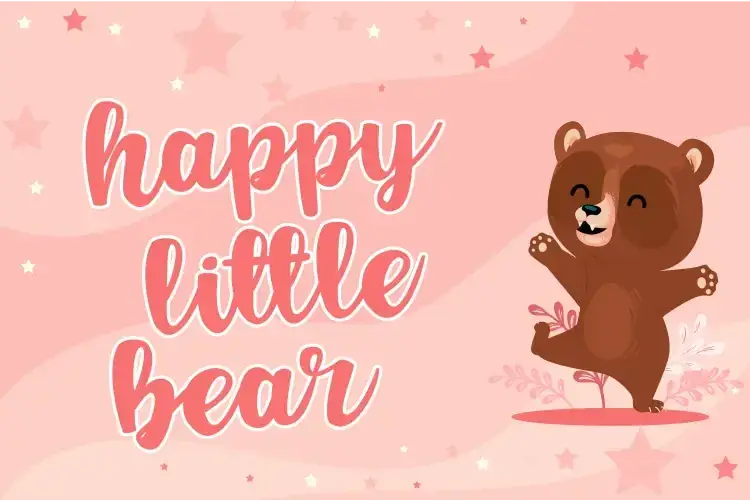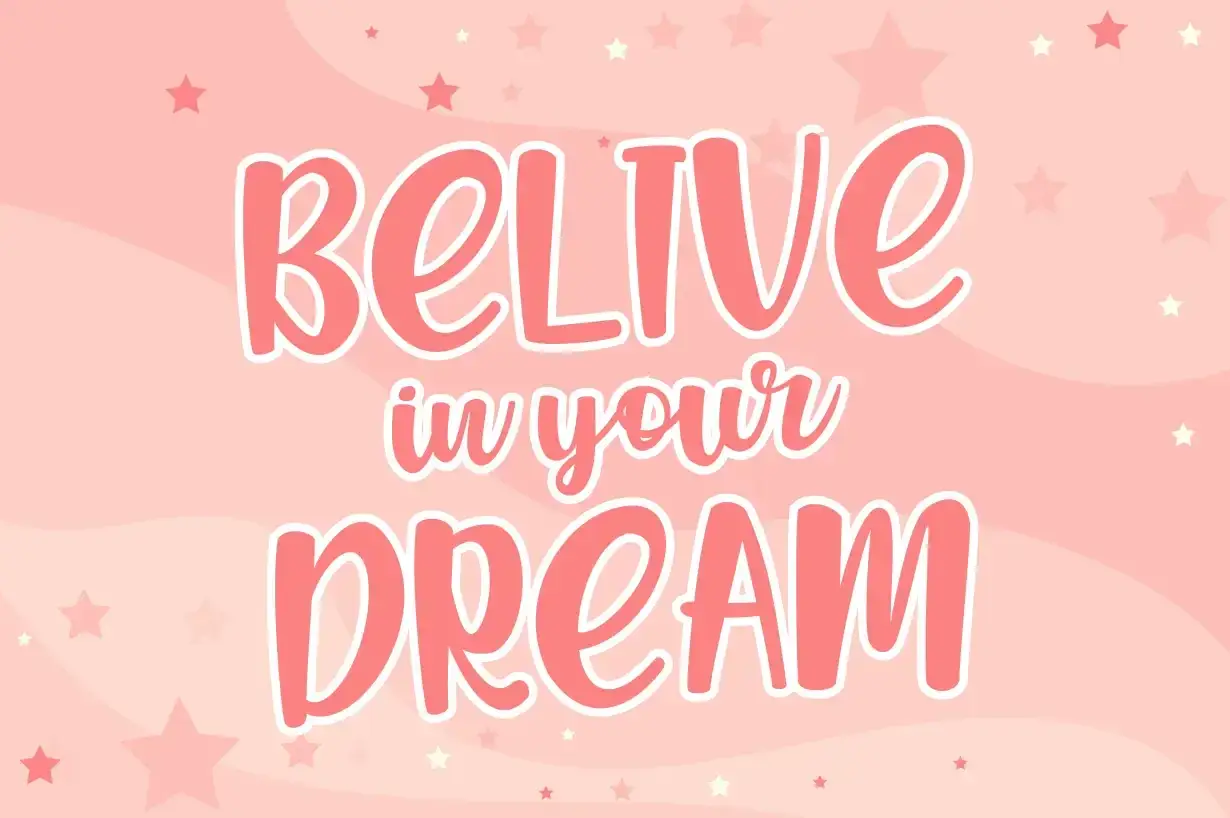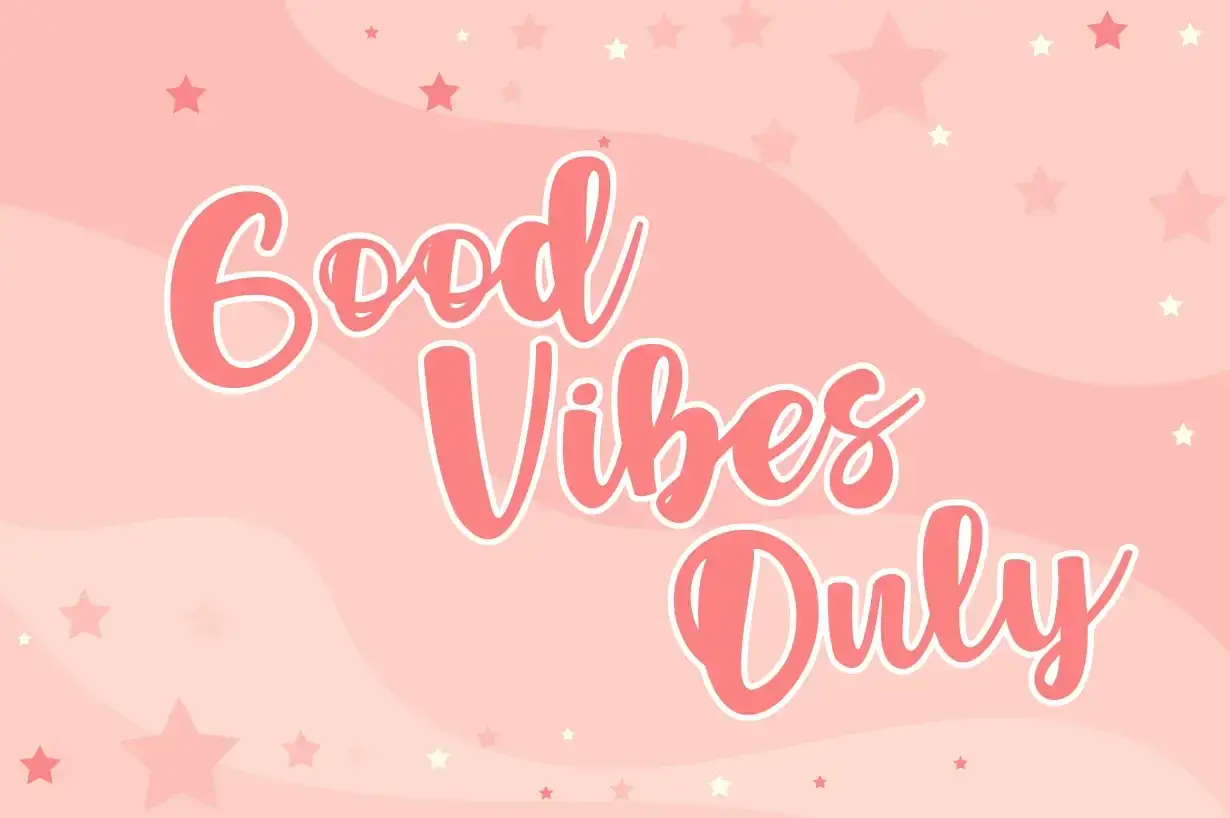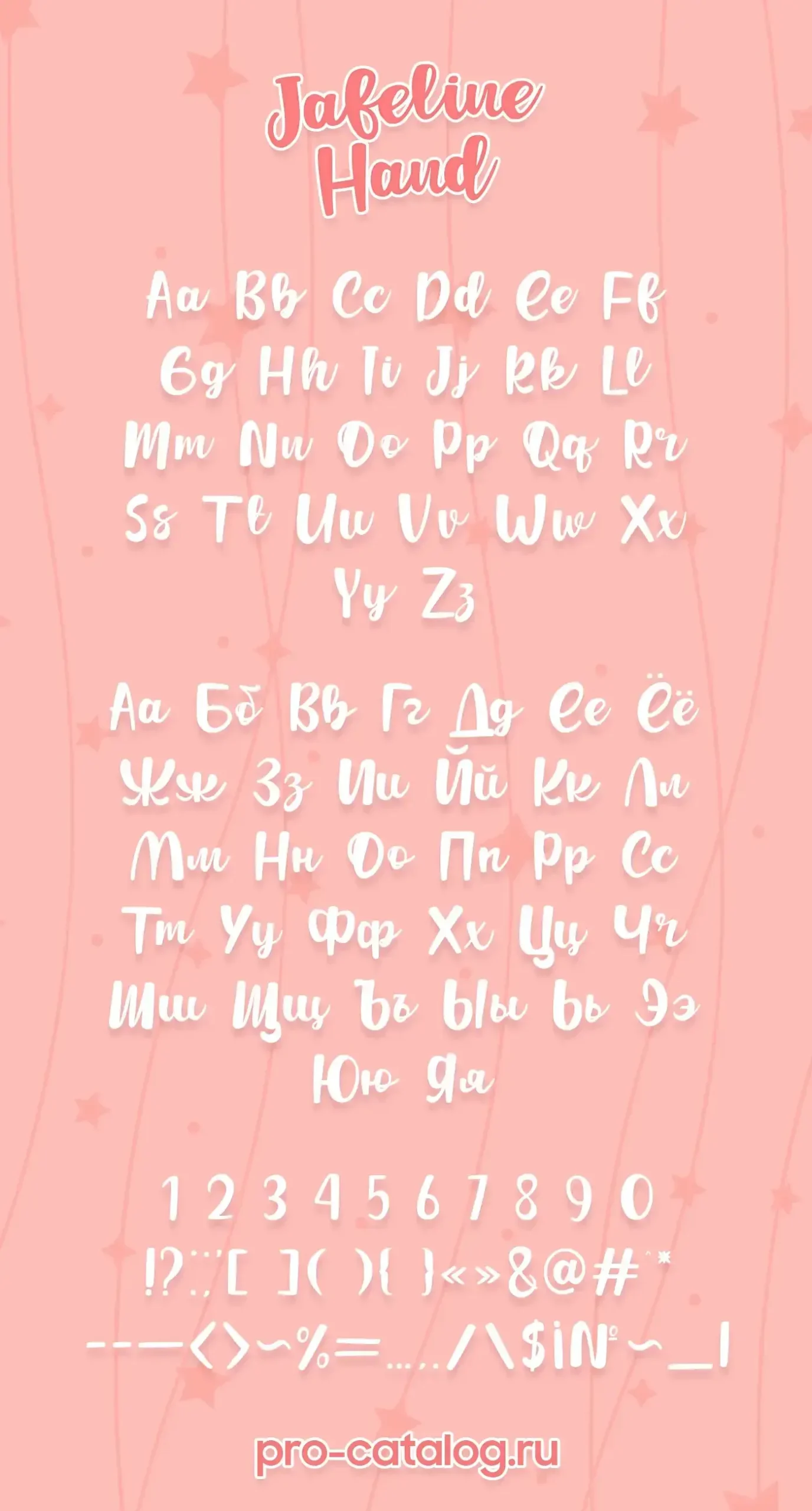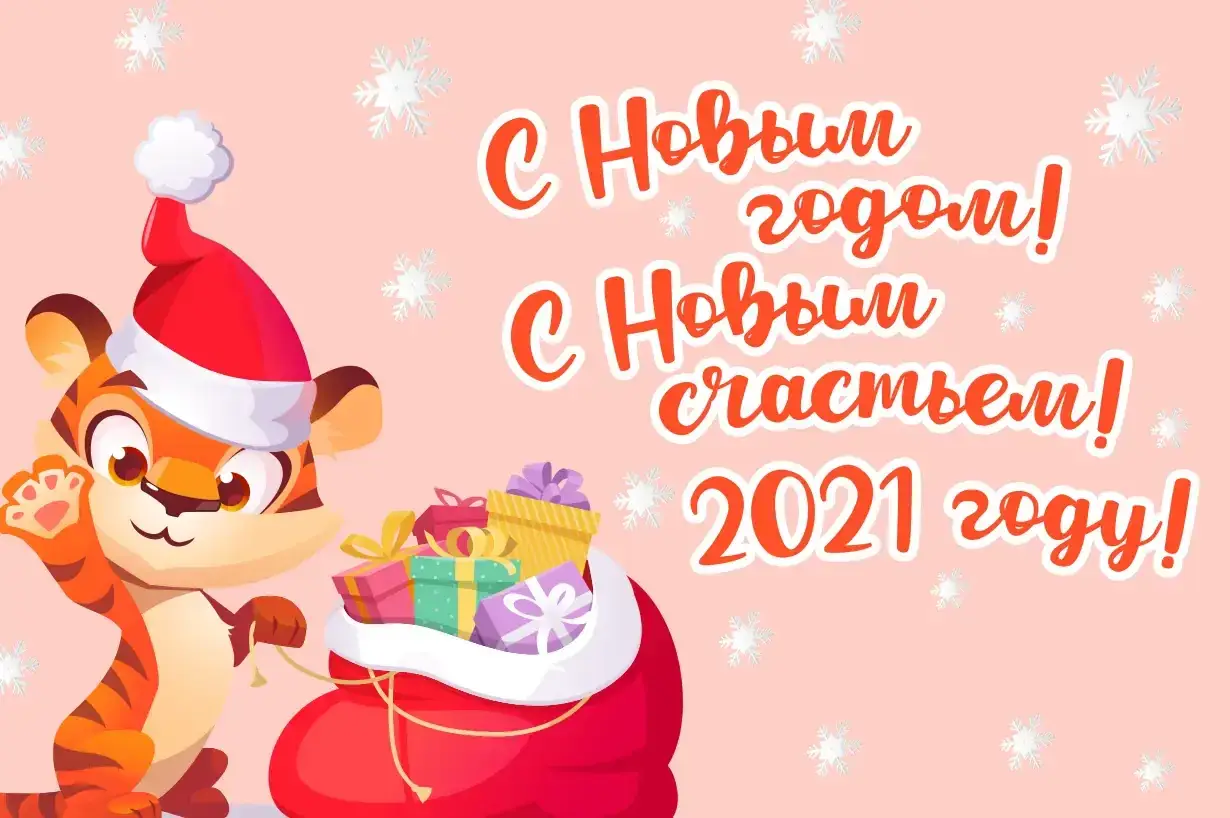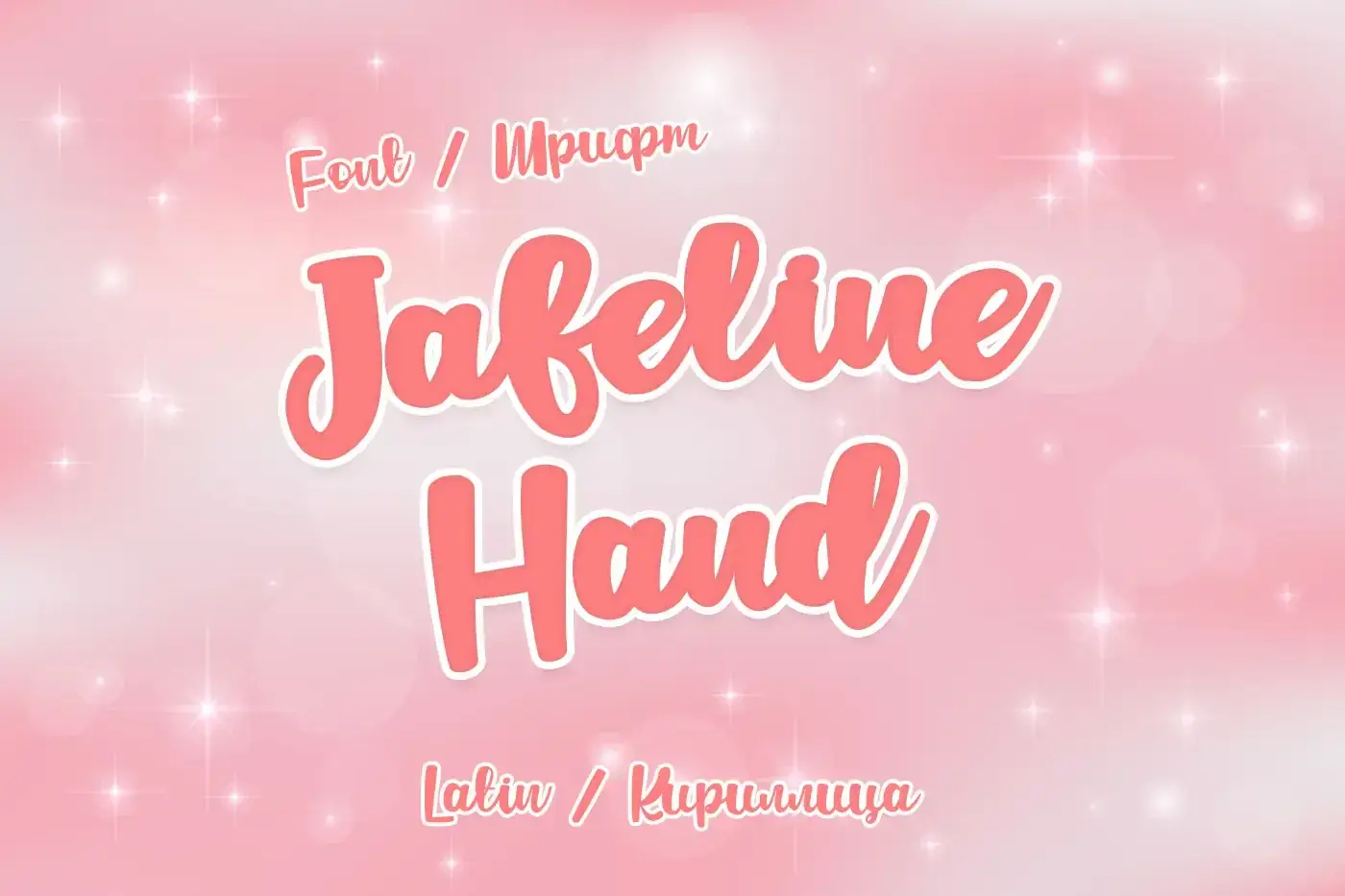
Jafeline Hand Font: A Perfect Blend of Charm and Modernity
Introducing Jafeline Hand Font, a delightful handwritten typeface that combines the elegance of classic calligraphy with a contemporary twist. This font is perfect for those looking to create unique and eye-catching designs that stand out.
Jafeline Hand Font is designed for creatives who appreciate the beauty of handwritten typography. Whether you’re working on invitations, branding, or digital projects, this font adds a personal touch that captures attention and evokes emotion.
- ✅ Stylish Design → Perfect for modern and vintage aesthetics alike.
- ✅ Ligatures Included → Seamlessly connect letters for a fluid writing style.
- ✅ Versatile Usage → Ideal for wedding invitations, greeting cards, and more.
- ✅ Unicode Support → Access a wide range of characters for diverse projects.
Why Choose Jafeline Hand Font?
Choosing Jafeline Hand Font means opting for quality and creativity. This font is trusted by designers worldwide for its versatility and aesthetic appeal. It’s not just a font; it’s a tool that enhances your creative projects, making them more engaging and visually appealing.